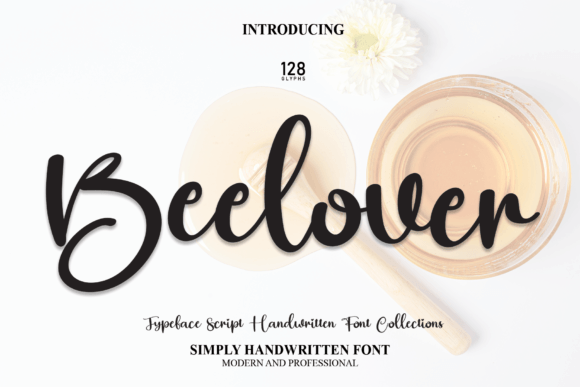
Step into a world of captivating aesthetics with Beelover Font, the ultimate script font that will ignite your creativity and transform your designs into masterpieces. Crafted with meticulous precision by andikastudio, Beelover embodies timeless classic calligraphy, capturing the essence of elegance and sophistication.
With its contemporary atmosphere, Beelover Font exudes a modern sensibility that is both captivating and timeless. Its carefully balanced strokes and varied character set create a visual symphony that dances across your screen, enchanting your audience with its beauty. Whether you're a seasoned designer or just starting your creative journey, Beelover Font will elevate your projects to new heights of artistry.
Unleash the boundless possibilities of Beelover Font and let your imagination run wild. Dive into the world of tattoo design and create intricate, eye-catching designs that will leave a lasting impression. Let your words dance with grace and finesse as you craft stunning logos and branding elements that command attention and convey your message with unparalleled clarity.
Beelover Font is the perfect choice for those seeking a font that embodies both style and functionality. Its versatility extends beyond tattoo designs and logos, making it ideal for a wide range of creative projects. From elegant wedding invitations to heartfelt greeting cards, Beelover Font adds a touch of magic to every word, transforming your designs into unforgettable works of art.
Immerse yourself in the world of typography and let Beelover Font guide you on a journey of artistic discovery. Experience the joy of creating designs that resonate with your audience and leave a lasting impression. Download Beelover Font today and unlock a world of creativity that knows no bounds. Let your imagination soar and witness the transformative power of a truly exceptional font.